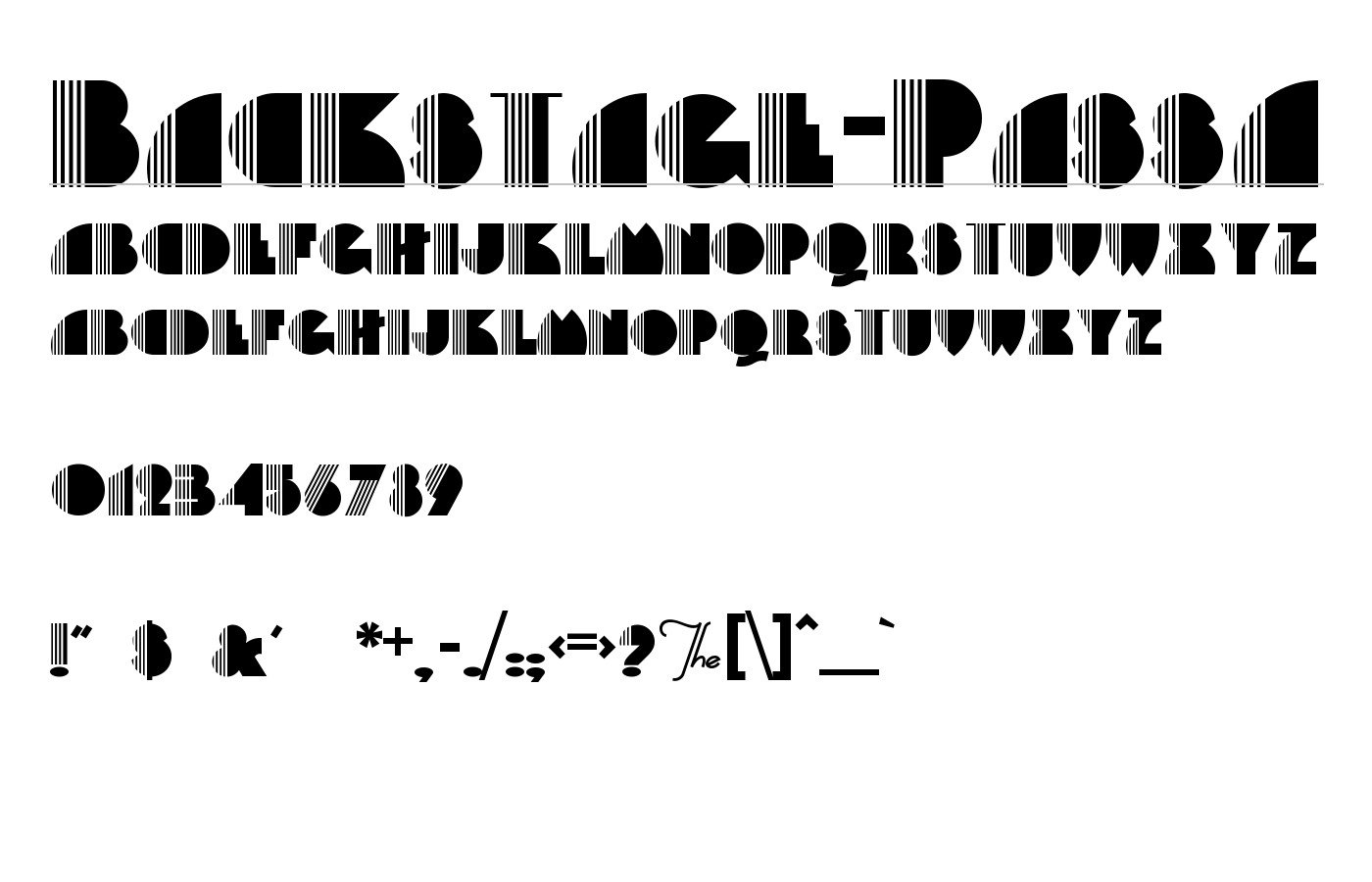
Backstage-PassA is a bold, decorative display font characterized by its striking combination of solid geometric shapes and parallel vertical stripes within each letterform. With its strong contrast between thick and thin elements, unique art deco influence, and all-caps design, it evokes a vibrant, theatrical mood perfect for attention-grabbing headlines, posters, and branding in entertainment or fashion contexts. This font excels when used to create a stylish, dramatic impact rather than for body text, making it ideal for creative projects seeking a retro-modern flair.
Backstage-PassA Font